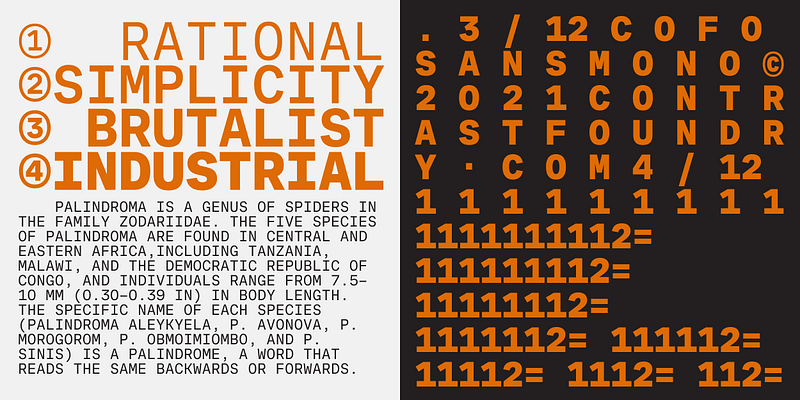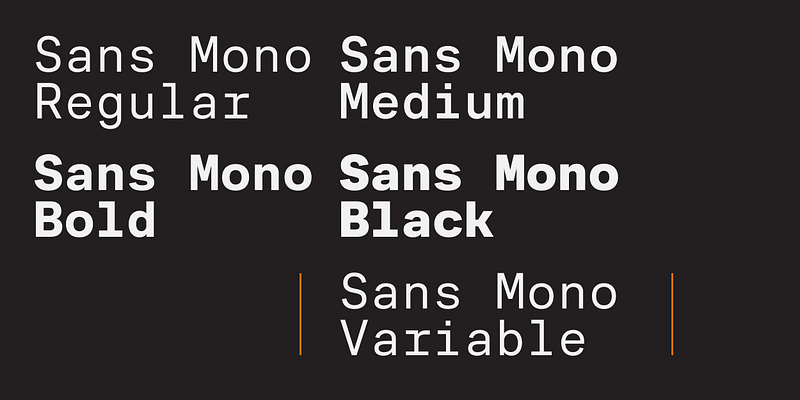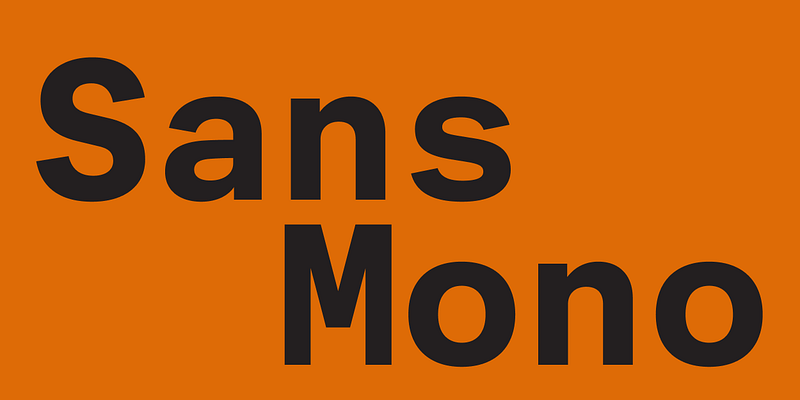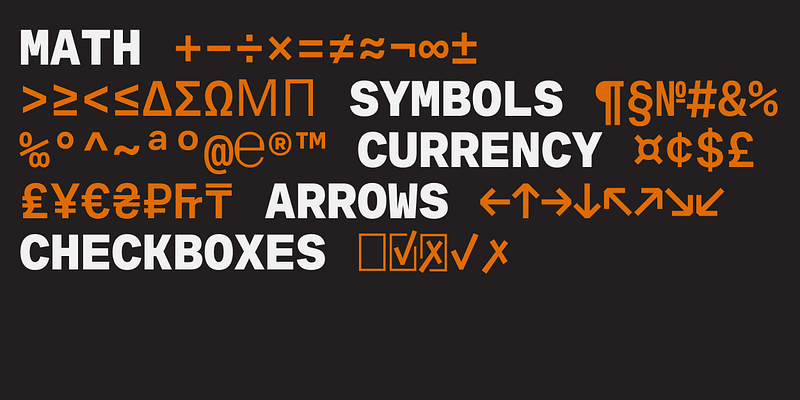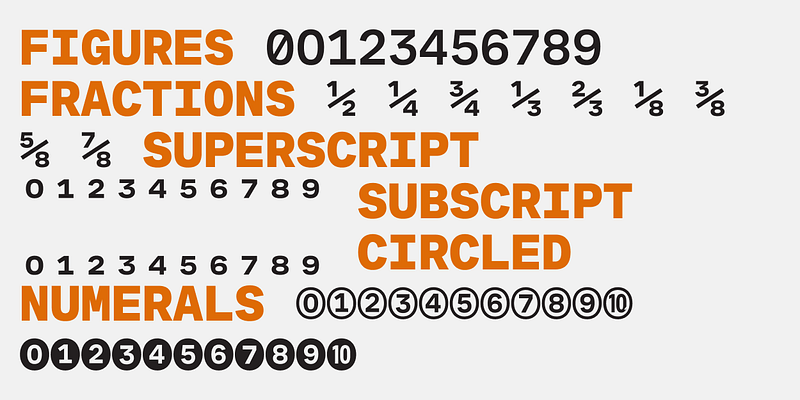
CoFo Sans Mono is the new member of our CoFo Sans Family. It comes in 4 weights—Regular to Black,—which all share the same width. CoFo Sans Mono retains many of the key characteristics of CoFo Sans, but they’ve all been adapted to fit the demands of a monospaced typeface. You will notice a significant difference in the proportions, sometimes even in the construction of certain letters. Special attention was given to the Cyrillic letterforms, which are a particular challenge in a monospaced width, due to the large amount of wide characters, but we are particularly proud of the balance we managed to achieve in Cyrillic, even in the heavier weights. CoFo Sans was designed with simplicity in mind and the monospaced version with its rationality, clean forms, industrial feel and a rich character set that includes Latin, Cyrillic, an extensive set of figures and carefully crafted fractions and symbols is no different. CoFo Sans Mono can be used on its own, but it’s also a great addition to CoFo Sans, which is slowly growing into a big family with a diverse set of possible uses. Combined with the full family, CoFo Sans Mono can become a powerful system for complex typesetting.